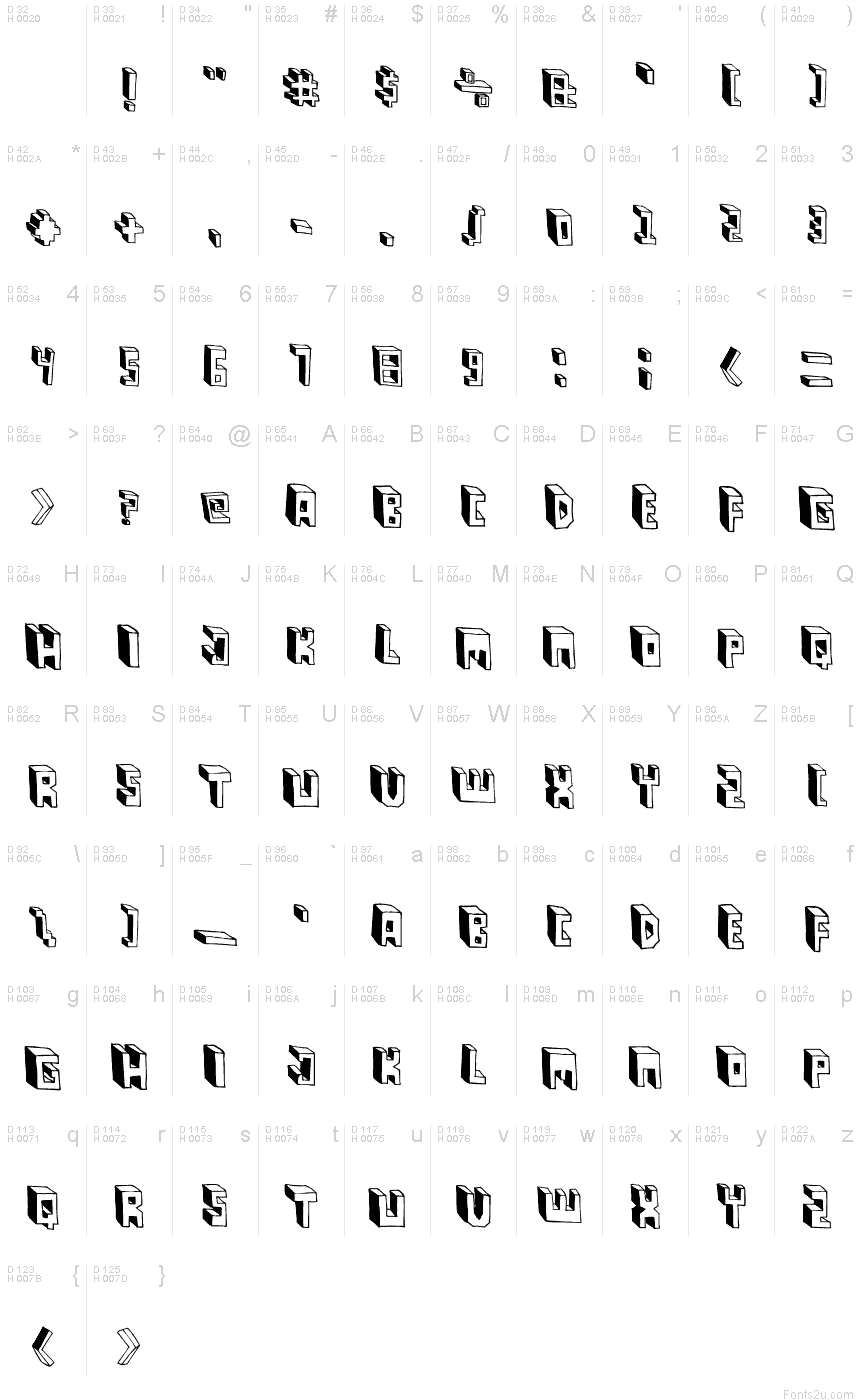
Pastas Black
Pastas Black font by Pastas is a free 3D display typeface with chunky, hand-drawn blocks that look like they’ve been carved out of cardboard and stacked on a page. Each letter tilts and leans with a playful wobble, while the bold outlines and shaded sides create a tactile, almost cut-and-paste feel that jumps forward from the screen or paper. It’s loud, fun, and just a bit rough around the edges in the best way.
Using Pastas Black, headlines instantly feel like they belong on snack packaging, party posters, comic titles, stickers, or bold logo experiments. This free font shines on YouTube thumbnails and social posts where you need quick, grabby impact with a homemade twist. Pair it with a clean, simple sans serif for body text and let Pastas Black handle the big, shouty words at oversized point sizes.